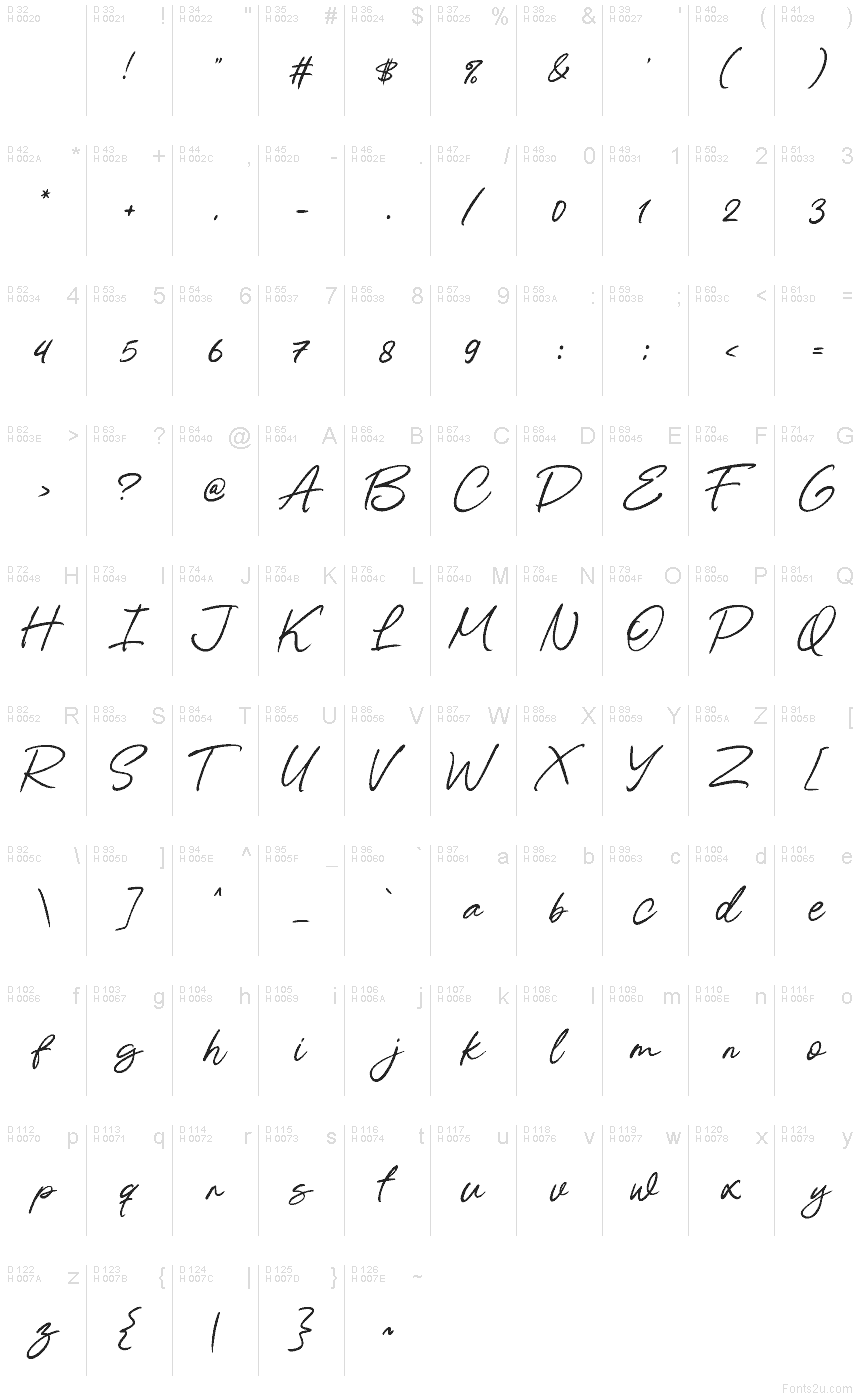
Opencare
Opencare font by Khurasan is a free handwritten font showcasing an expressive elegance and natural flow. With its cursive feel, this typeface has the power to reveal exquisite creations apt for both classic and contemporary use. Taking notes and writing messages on a tablet will never be the same with Opencare—you’ll feel like you can’t stop writing!
Get your texts short and sweet or lengthy and narrative with this font. Use it for call-outs and graphics, websites, Facebook images, Pinterest boards, Instagram hashtags styling, invitations’ design (like wedding), posters, stationery craft projects, logos. Technical elements are also worked out well so you can end up using it on web or mobile applications easily even without having any professional skills!